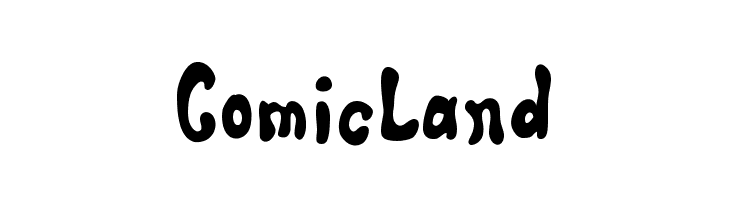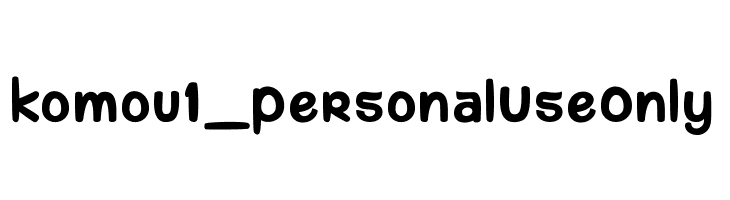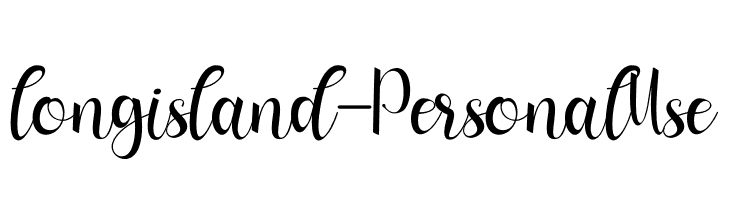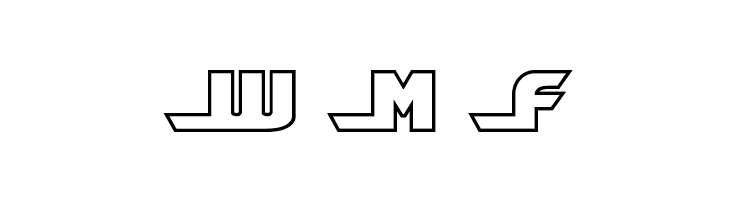
A playful, rounded font with a bold and friendly appearance.
A modern, italicized font with medium contrast and a sleek, condensed style.
A playful, hand-drawn font with bold, rounded characters.
A playful, hand-drawn font with a rough, bold style.
A dynamic and elegant script font with fluid, connected letterforms.
A dynamic and elegant script font with fluid, sweeping letterforms.
A flowing, handwritten style with dynamic slant and varied stroke thickness.
A lively, elegant script font with flowing, cursive letterforms.
A futuristic, angular italic font with bold strokes and high contrast.
A bold, handwritten font with a playful and casual style.